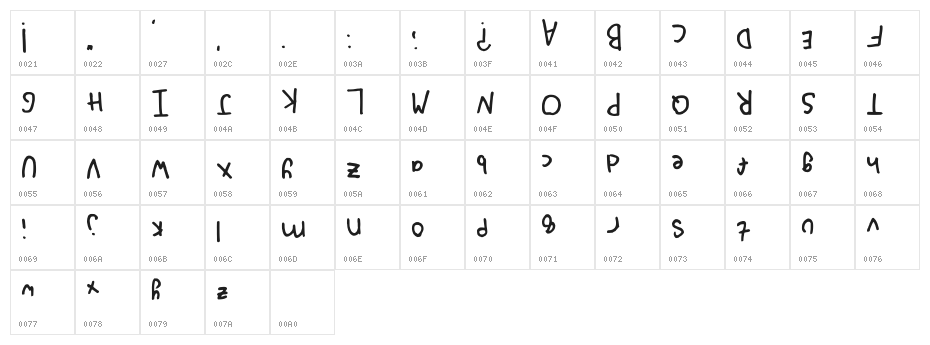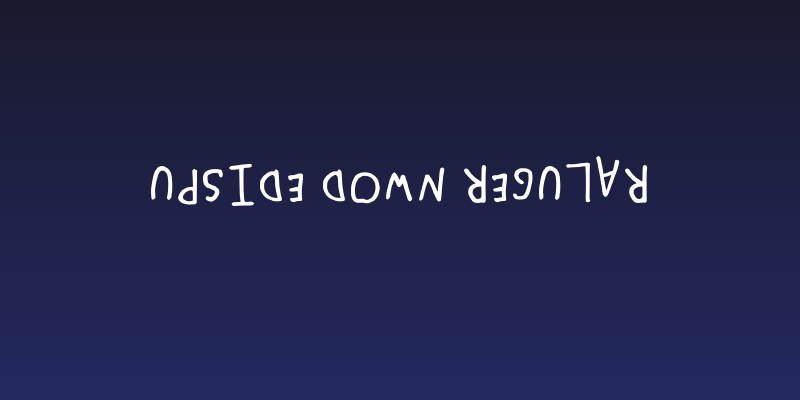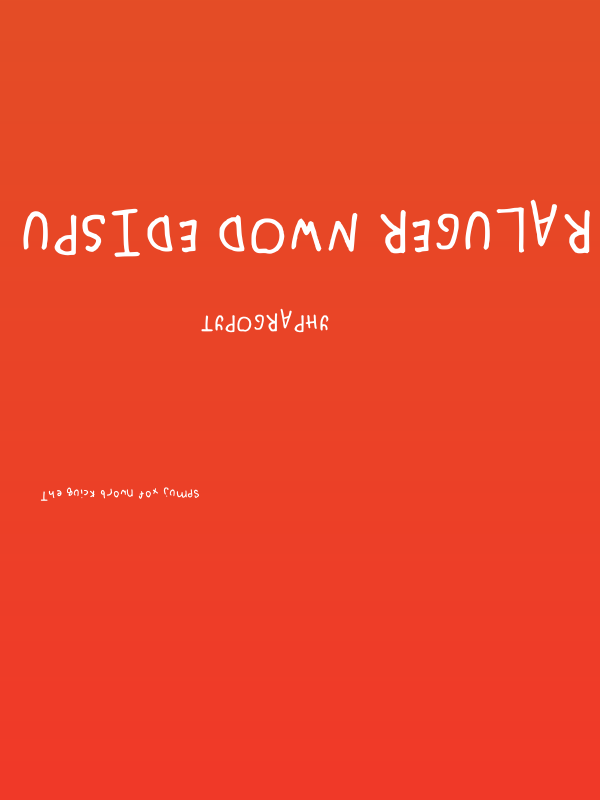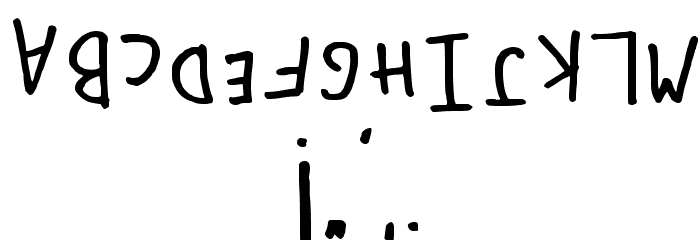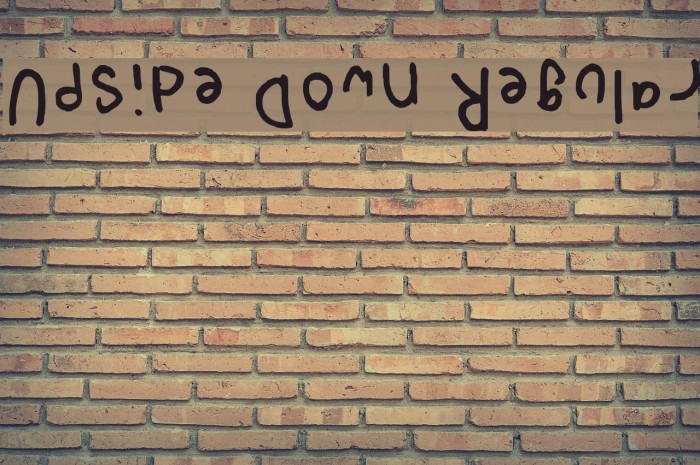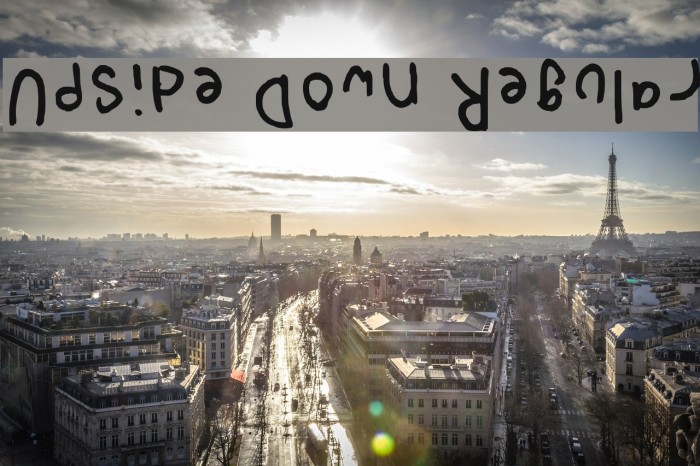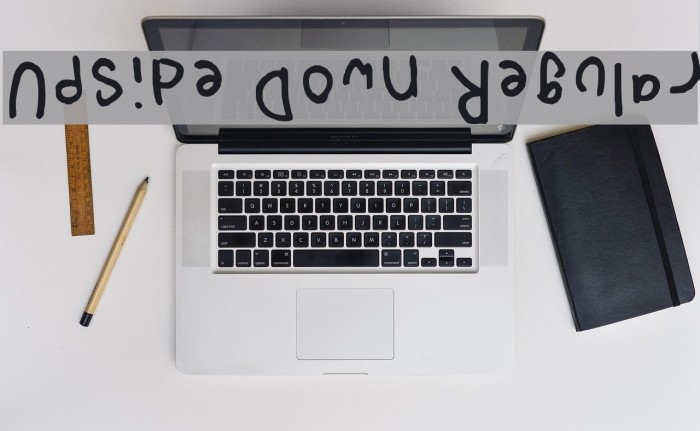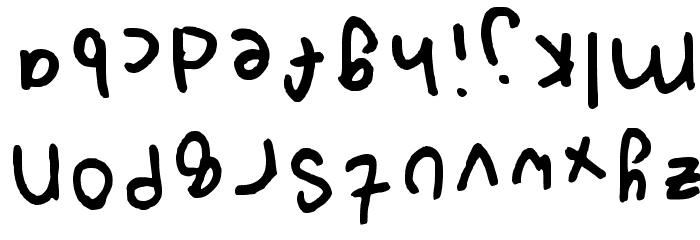
Upside Down Regular Font
Upside Down Regular Description
This playful and quirky font features a handwritten style with a casual and informal appearance. The letters are slightly uneven, adding a personal touch that mimics natural handwriting. Each character has a unique flair, with rounded edges and varying stroke widths that create a lively and dynamic feel. The font maintains a consistent baseline, while the character heights vary slightly, enhancing its organic look. The overall style is approachable and friendly, making it suitable for projects that require a personal or whimsical touch.
| Proposed Projects | Ideal for greeting cards, children's books, personal blogs, and creative projects that require a friendly and approachable aesthetic. |